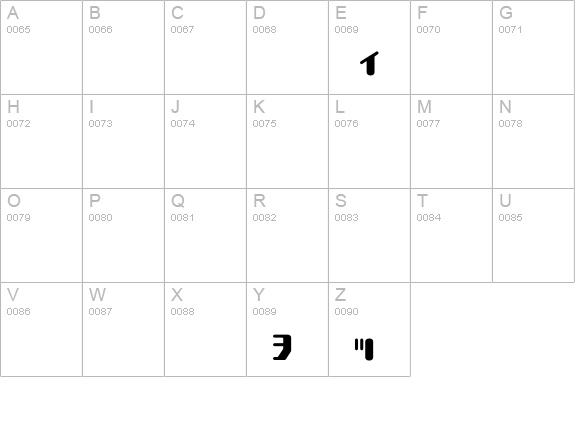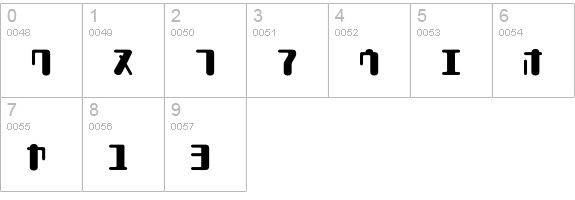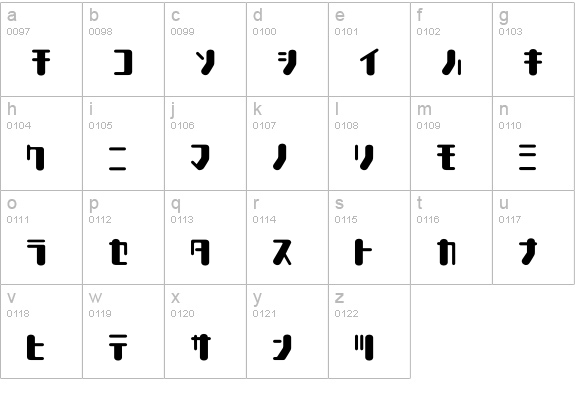
TYPEOUT2097KAT-Regular Font Details
TYPEOUT2097KAT-Regular is the standard, neutral variant in the TYPEOUT2097KAT typeface family \xE2\x80\x94 well suited to general body text, paragraphs, and standard typographic work.
TYPEOUT2097KAT-Regular is a stunning and futuristic font that is sure to catch the eye of any viewer. With its sleek and modern design, this font is perfect for creating attention-grabbing headlines, logos, and signage. The clean lines and unique letterforms of TYPEOUT2097KAT-Regular give it a distinct and contemporary look that will elevate any design project. This font is not only stylish, but it is also incredibly versatile. Whether you're designing for print or digital media, TYPEOUT2097KAT-Regular will deliver exceptional results. Its legibility and readability make it suitable for a wide range of applications, from branding and advertising to web design and packaging. One of the best things about TYPEOUT2097KAT-Regular is that it is freely available to download at FontsMarket.com. This means that you can start using this incredible font in your projects right away, without having to worry about any additional costs. FontsMarket.com is a trusted source for high-quality fonts, and they offer an extensive collection of free fonts for designers to choose from. So why wait? Download TYPEOUT2097KAT-Regular today and take your designs to the next level. Whether you're a professional designer or someone who simply appreciates good typography, this font is a must-have in your font library. With its modern aesthetic and wide range of applications, TYPEOUT2097KAT-Regular is sure to become a go-to choice for all your design needs.